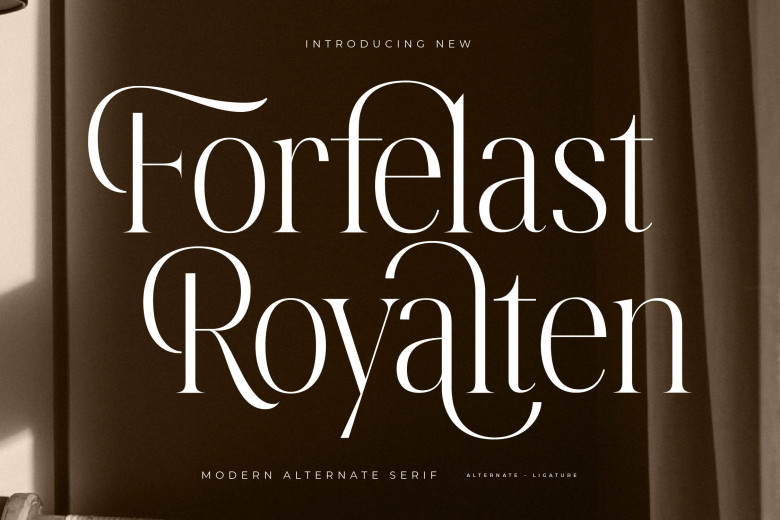
Forfelast Royalten Font
Forfelast Royalten – Modern Alternative Serif Font is suitable for use in all designs, from logos and branding materials, packaging designs and homeware items, such as packaging mugs posters quotes, t-shirts, book covers, name cards, invitations, greeting, watermark label ,photography, special occasions projects.
Forfelast Royalten Serif Font